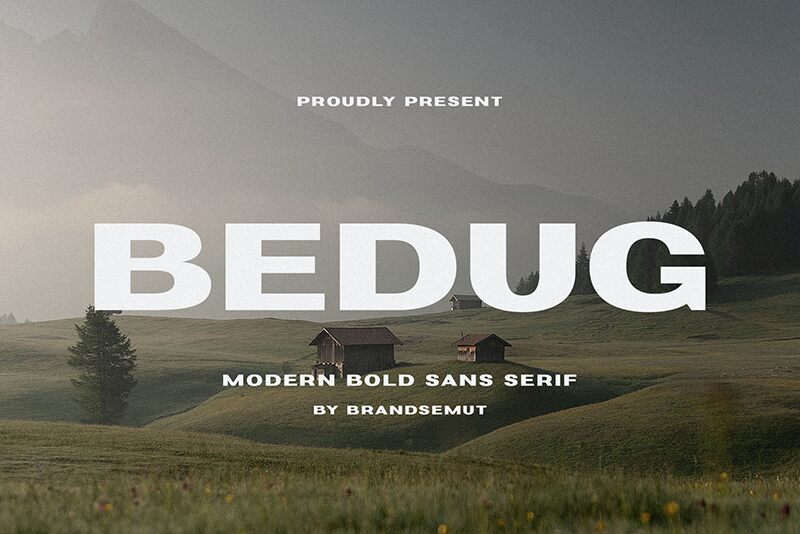
Bedug
BEDUG is a striking and impactful sans-serif font that commands attention. Its bold, expanded letterforms exude a sense of strength and confidence, making it an excellent choice for headlines, titles, and branding applications. The sharp, geometric shapes and clean lines give BEDUG a modern, industrial aesthetic that would work well in a variety of design contexts, from editorial layouts to packaging and advertising.
This font's expansive width adds a sense of grandeur and visual heft, making it well-suited for display purposes where a bold, attention-grabbing look is desired. BEDUG's powerful presence can lend an air of authority and sophistication to any project, making it a versatile tool in the hands of skilled designers.